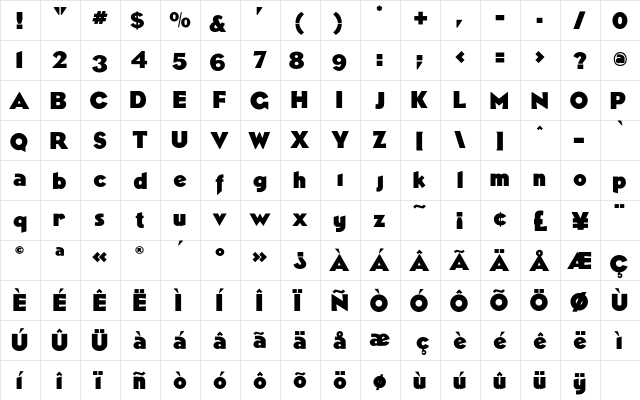
Nova Bold
Design Context for Nova Typeface
Nova is a composed and adaptable typeface that performs quietly and consistently across a wide range of design contexts. Its bold stroke weight gives it real presence on the page.
Pro Tip: Use Nova in both headline and body roles to test its range before committing to a single application.